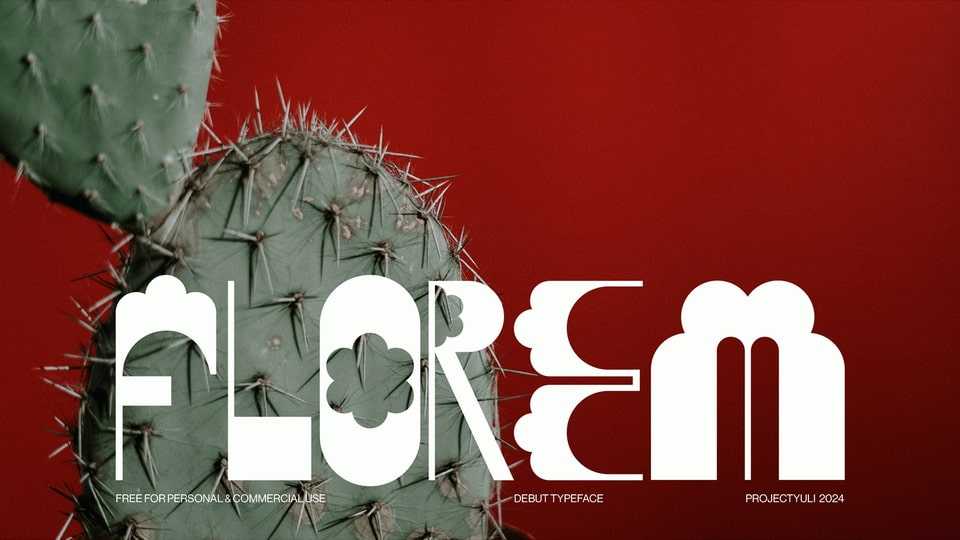
Download Florem font, a typeface created after the designer visited Ttukseom, Seoul. Suddenly surrounded by flowers in the middle of summer – she wanted to created something to reflect the joy she felt.
Designer: Yuli M